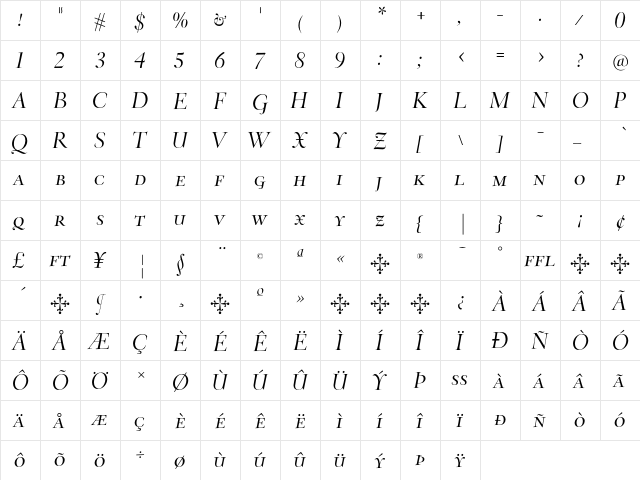
EldoradoDisplay ItalicSC
Design Context for EldoradoDisplay Typeface
EldoradoDisplay brings ornamental detail and strong personality to headlines and identities, where visual impact matters more than quiet functionality. The dynamic lean of this cut emphasises speed and emphasis in any layout.
Font Pairing: Pair with a clean neutral sans-serif for body copy to let EldoradoDisplay's character lead without overwhelming the composition.
Pro Tip: Treat EldoradoDisplay as the centrepiece of your typographic hierarchy. One strong heading set in a decorative face can carry an entire layout.